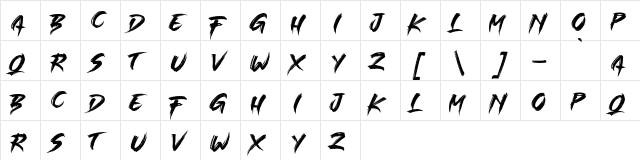
SINGLE FIGHTER Regular
| Designer | SUBECTYPE. 2019 |
Design Context for SINGLE FIGHTER Typeface
SINGLE FIGHTER is a composed and adaptable typeface that performs quietly and consistently across a wide range of design contexts.